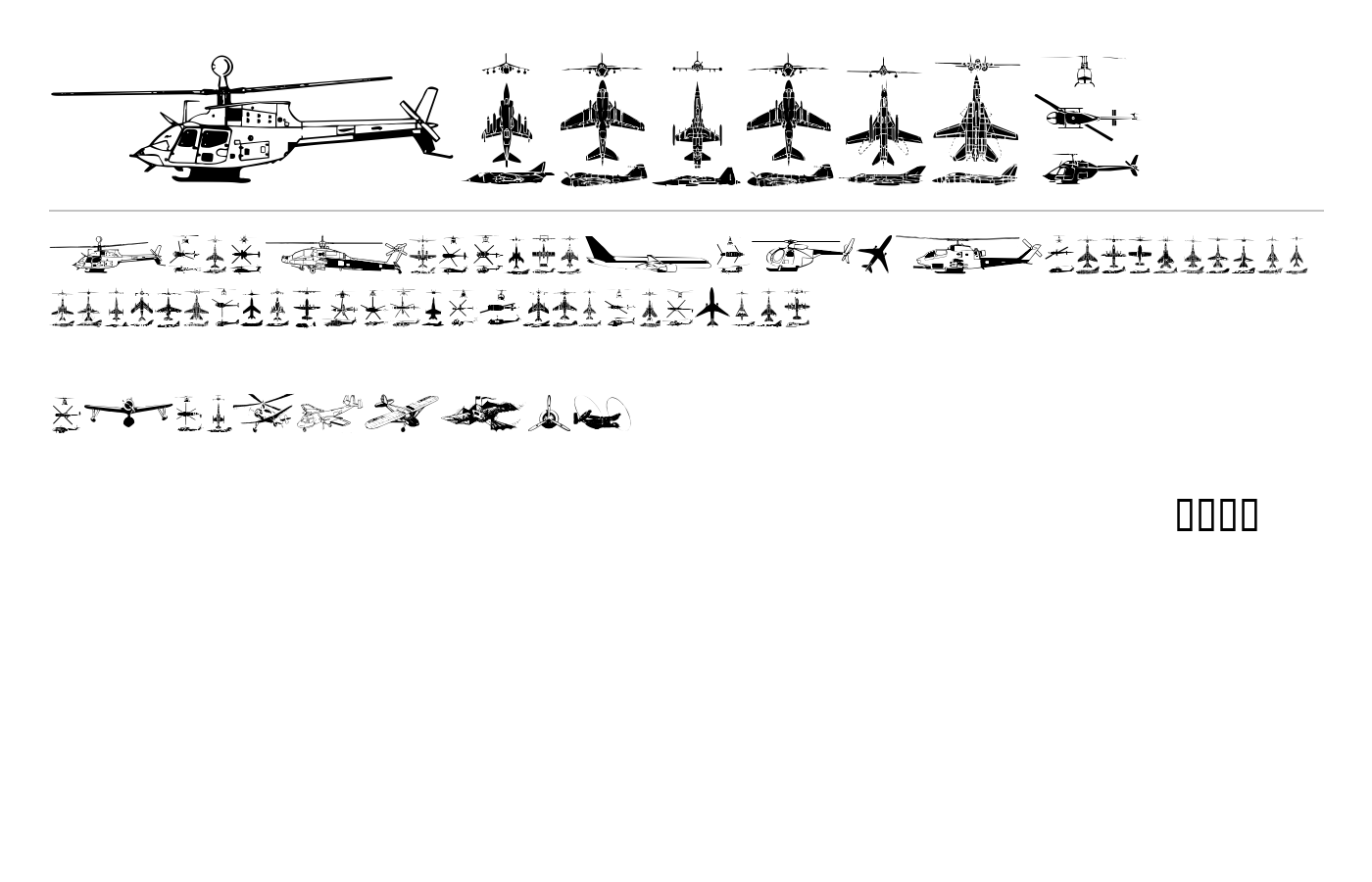
Aircraft Font is a unique dingbat-style typeface featuring detailed silhouettes of helicopters, airplanes, and various aircraft viewed from multiple angles. This font adds a technical and aviation-inspired touch to any design, perfect for projects related to aerospace, military, or travel themes where distinctive, illustrative iconography is needed instead of traditional text. Its intricate and realistic aircraft shapes make it ideal for logo design, posters, or branding that aims to evoke precision and aeronautical expertise.
Aircraft Font
About Aircraft Font